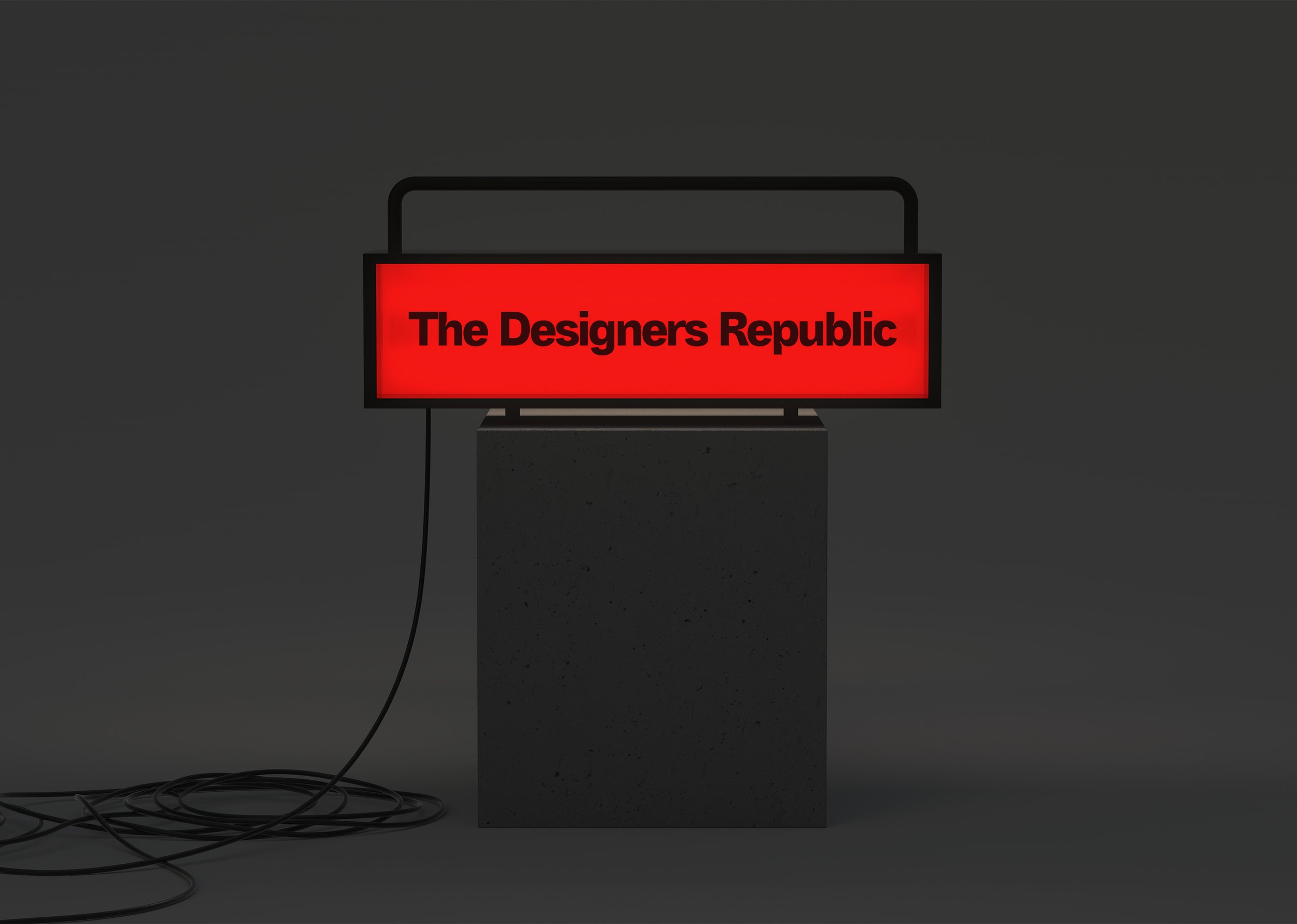
Heltar is a modern neo-grotesque typeface born from the legacy of Helvetica and refined for the digital age. Drawing inspiration from The Designers Republic's treatment of Helvetica and the improvements of Hass Unica, Heltar strikes a balance between homage and innovation. Its meticulously crafted letterforms boast optical precision and subtle corrections, ensuring readability and rhythm, even under close tracking. But Heltar isn't just about the past; it's also about the future. By incorporating ink-traps for a stylised, machine-like aesthetic, Heltar speaks to industries at the cutting edge of technology, making it ideal for brands in manufacturing and tech, seeking a sleek, futuristic vibe.
The font includes eight weights and obliques, and over 650 characters per style. It boasts fourteen number variations, alternate characters (I, R, a, g, l), and unique glyphs like arrows, circled, and squared numbers. It also has extensive language support encompassing Western, Southern, and Central Europe.